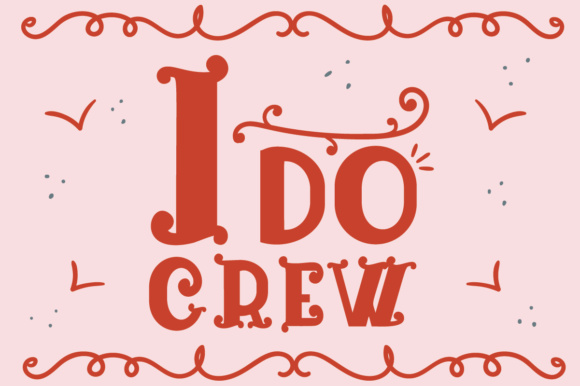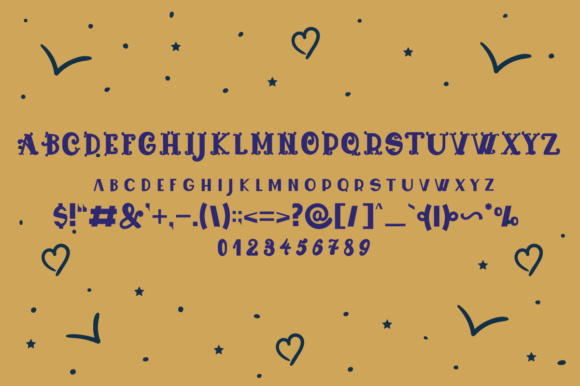
Introduction to Royal Book Font
Royal Book is a beautiful typeface with royal endings to each letter which will give your design a classy look.
Royal Book is a beautiful typeface with royal endings to each letter which will give your design a classy look
Key Features of Royal Book Font